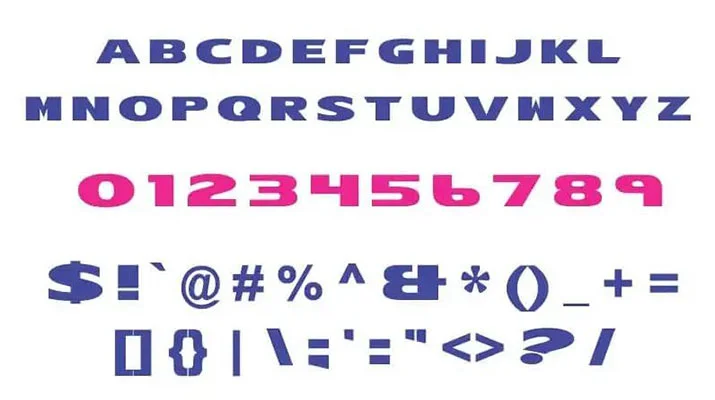
Taco Bell Bold by an unknown designer is a font based on the Taco Bell logo. All characters, including this typeface, follow a uniform baseline. In addition to perfectly kerned letterforms exhibiting high-grade legibility & appealing texture.
Style:Logo, Sans Serif, Display